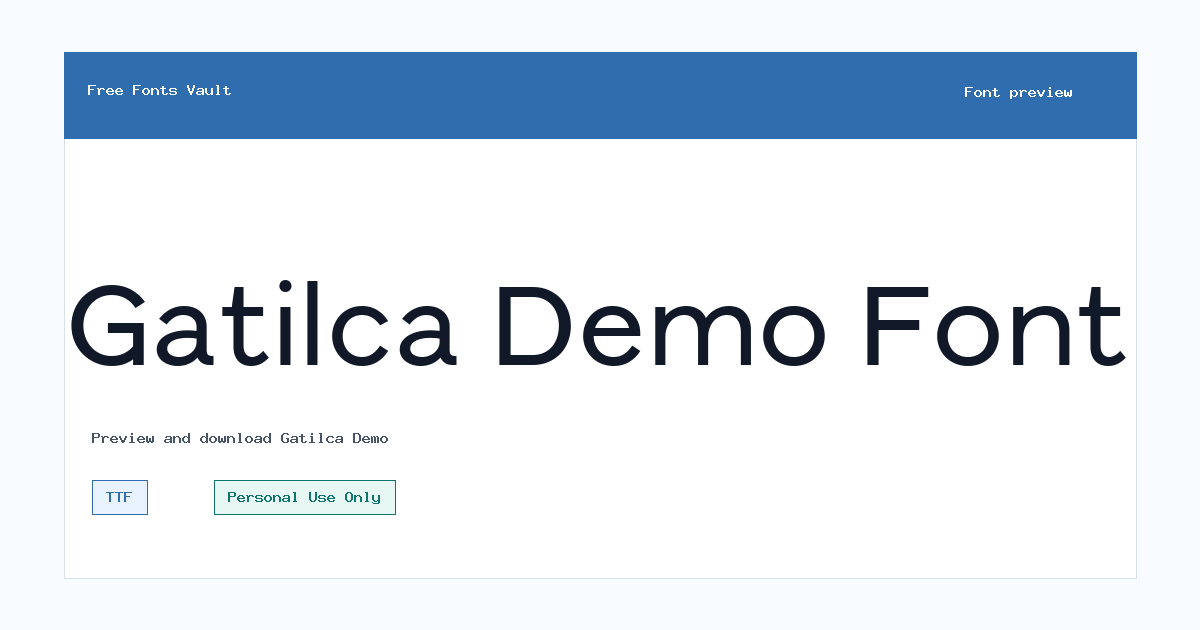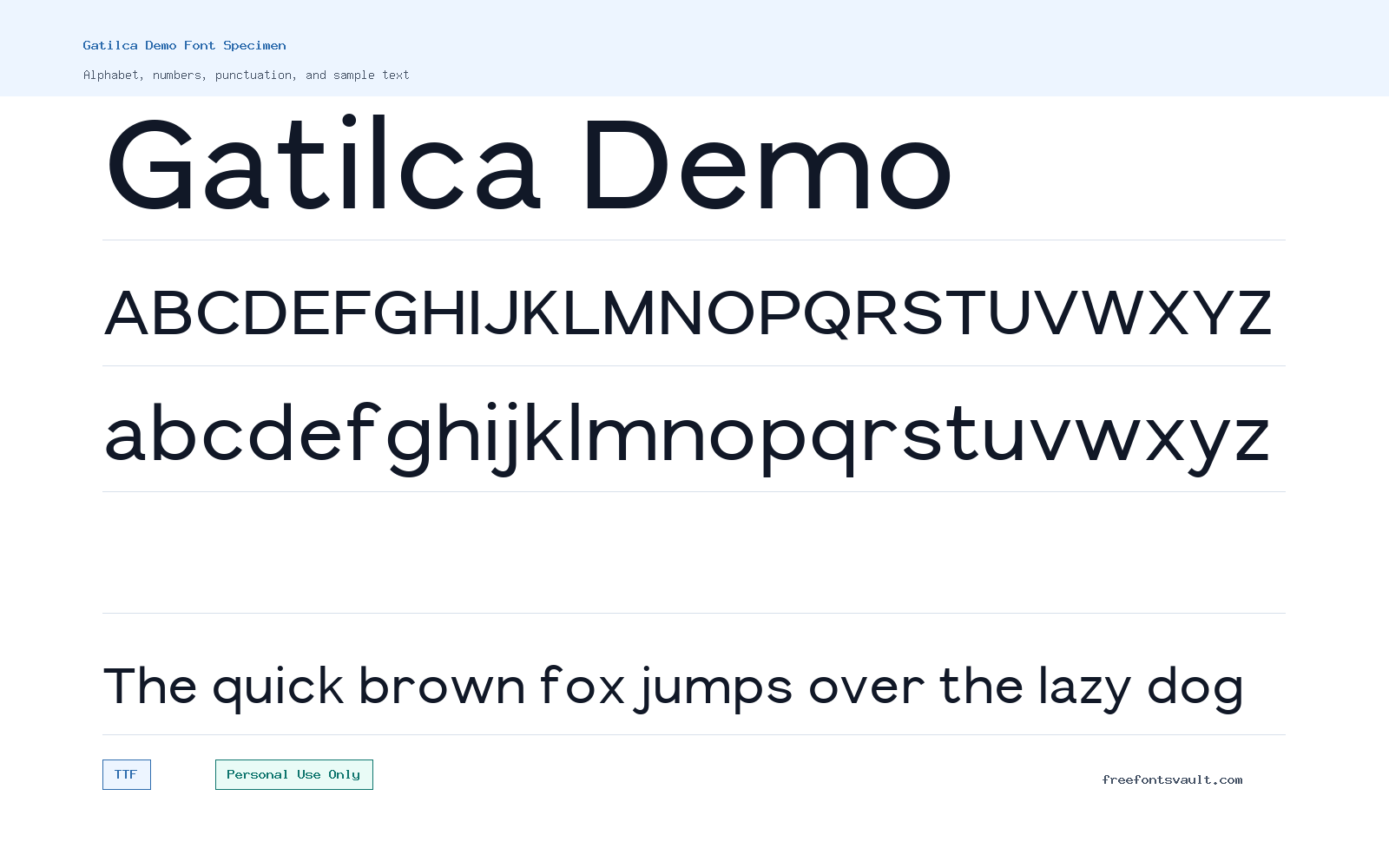
Gatilca Demo
- Designer Ragamkata Studio
Gatilca Demo is a personal-use sans serif font by Ragamkata Studio, offered as a regular TTF style for visitors who want to test it in headings, branding drafts, posters, and other display-focused designs.
About Gatilca Demo
Gatilca Demo is best approached as a clean display sans serif for short, controlled text rather than long reading passages. Because the downloadable style is a regular-weight TTF, it is easy to test in common design apps and preview tools. Use the preview box to check how its letter shapes behave in your own words, especially if your design needs mixed-case titles, names, short slogans, or brand-style text. A demo font can be useful during the early stage of a project because it lets you judge the mood, spacing, and readability before you decide whether it fits the final direction.
For logo work, try Gatilca Demo in short names first. Sans serif fonts often look strongest when the spacing is adjusted carefully, so test uppercase, lowercase, and title case versions before choosing one. If the design is for a poster, social graphic, YouTube thumbnail, web hero, or packaging mockup, increase the size and check the counters, punctuation, and word spacing. Avoid relying on one preview at one size. A font that looks sharp in a large heading may need more letter spacing in a logo draft, while smaller captions may need a simpler companion typeface. Pair it with a plain text face for body copy, and keep Gatilca Demo for the part of the layout that needs visual emphasis.
- Sans serif demo style suited to short display text, brand drafts, posters, and web mockups
- Useful for previewing headings, names, slogans, and layout concepts before committing to a final font
- Single available style, so pairing with a separate body-text font is recommended for complete designs
- Logo concepts and personal branding drafts
- Poster titles and event-style graphics
- Website hero headings and landing page mockups
- Social media graphics, thumbnails, and short promotional layouts
- Packaging mockups, moodboards, and presentation concepts
Who designed Gatilca Demo?
Gatilca Demo is credited to Ragamkata Studio.
Is Gatilca Demo good for body text?
It is better to test it first in short headings, names, and display layouts. For longer paragraphs, pair it with a highly readable text font.